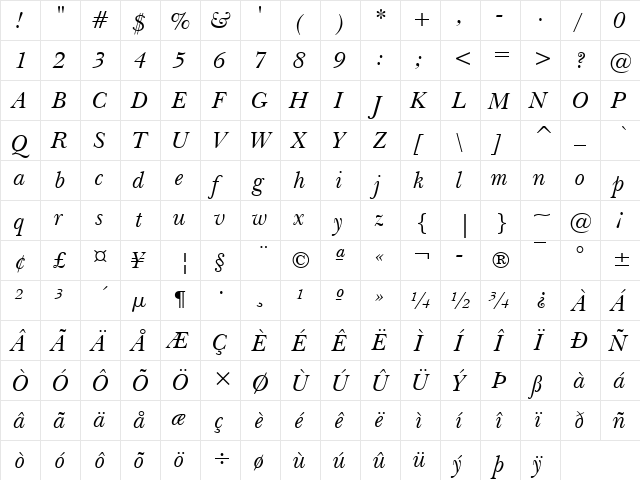
Baskerville Win95BT Italic
Design Context for Baskerville Win95BT Typeface
Baskerville Win95BT takes a measured approach to typography — its balanced proportions and neutral character make it a reliable workhorse for both digital and print work. The slanted form adds forward momentum and visual energy.
Pro Tip: Try Baskerville Win95BT for annotation and caption copy alongside an upright companion — the contrast in angle creates a dynamic but ordered typographic system.